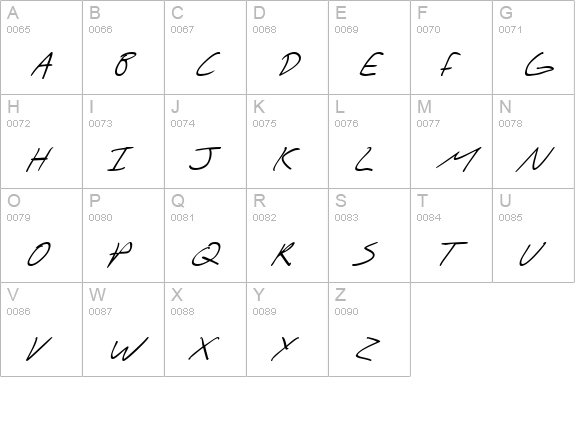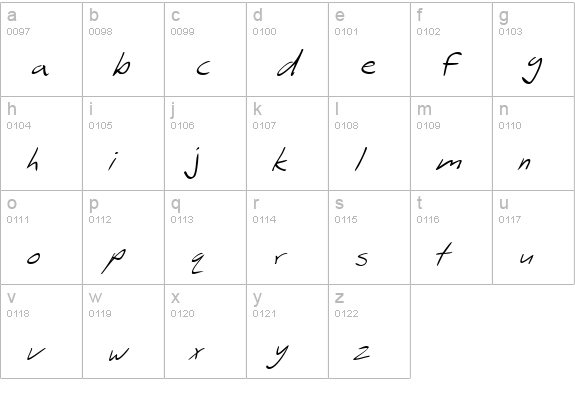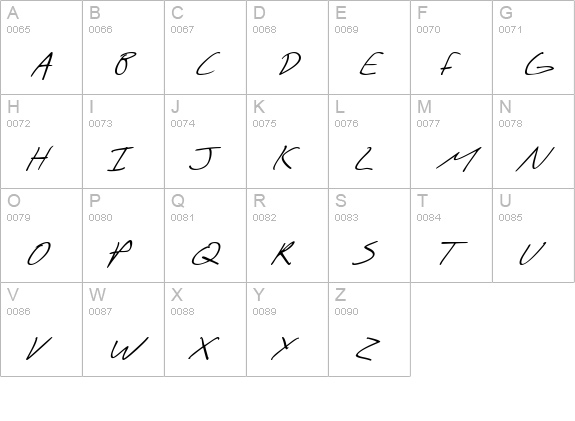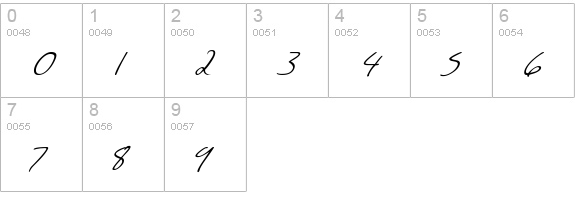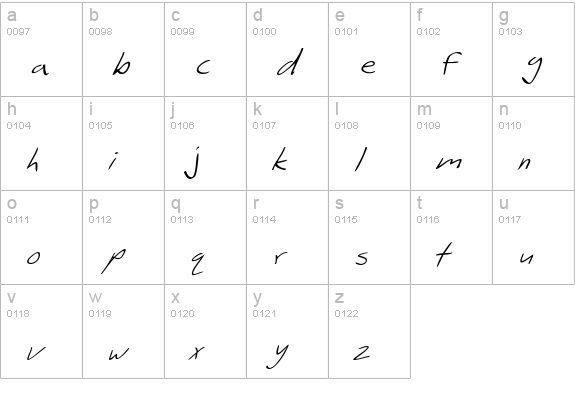
SF Scribbled Sans Italic Font Details
SF Scribbled Sans Italic is a distinctive, italic variant in the SF typeface family \xE2\x80\x94 well suited to design and typography projects.
SF Scribbled Sans Italic font is a unique and artistic typeface that will add a touch of creativity to any project. With its hand-drawn aesthetic and playful curves, this font captures the essence of spontaneous scribbles and doodles. It is the perfect choice for those looking to add a whimsical and fun element to their designs. This italic variation of SF Scribbled Sans font adds a dynamic and energetic flair to your text. The slanted letters give a sense of movement and spontaneity, making it ideal for headings, titles, and anything that needs a touch of excitement. Not only does SF Scribbled Sans Italic font bring a fresh and unconventional style to your designs, but it is also freely available to download at FontsMarket.com. This means that you can unleash your creativity without any financial constraints. Whether you are a designer, artist, or simply someone who loves to experiment with different fonts, SF Scribbled Sans Italic font offers endless possibilities. The versatility of this font is evident in its ability to adapt to various design projects. From posters and flyers to social media graphics and branding materials, SF Scribbled Sans Italic font can transform any piece into an eye-catching and memorable work of art. Its playful and spontaneous nature makes it particularly suitable for children's books, comic strips, and any project that requires a touch of whimsy. With its freely available download, SF Scribbled Sans Italic font opens up a world of possibilities for designers and creatives. Its unique style and expressive letterforms are sure to make a lasting impression on any audience. So why wait? Download SF Scribbled Sans Italic font today and let your imagination run wild.